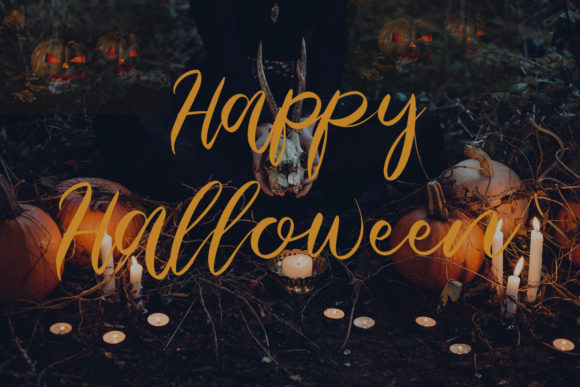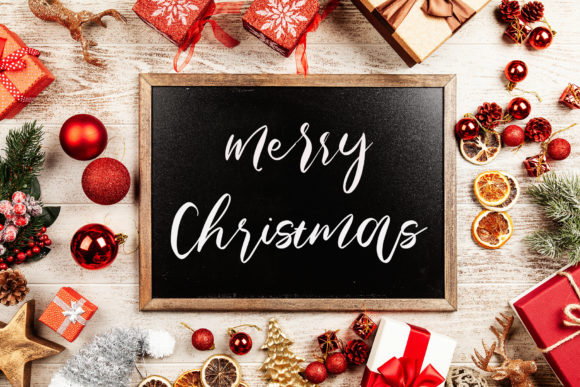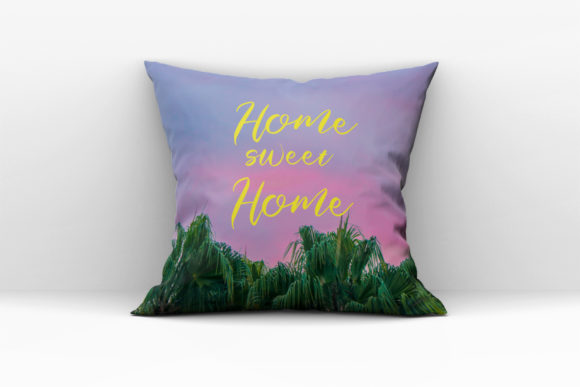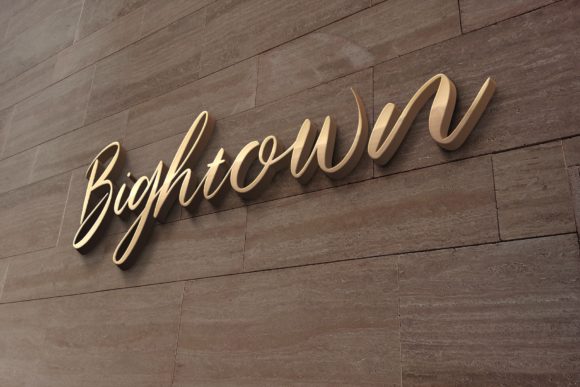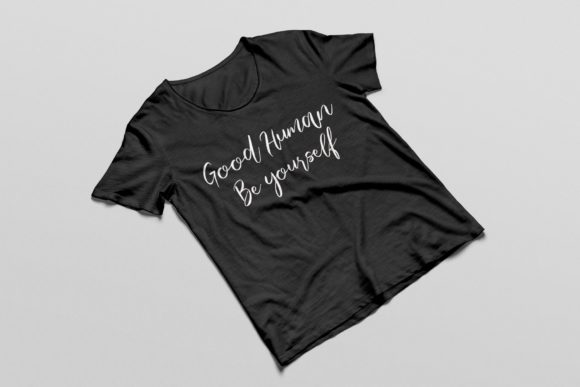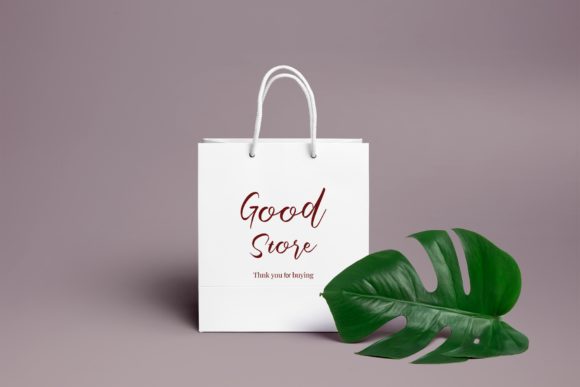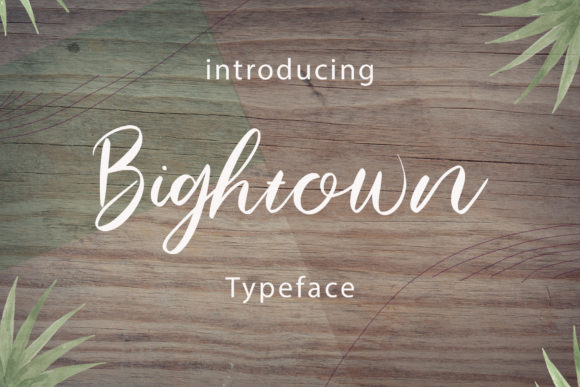
The Bightown Font: A Creative Powerhouse
I’ll never forget the moment I stumbled upon the Bightown font. I was working on a project for a client who wanted a unique, handwritten look that would make their brand stand out. I had spent hours scouring the internet for the perfect font, but nothing seemed quite right. That was until I discovered Bightown. With its incredibly unique handwritten style, I knew I had found the one. Masterfully designed to become a true favorite, this font has the potential to bring each of your creative ideas to the highest level!
So, what makes Bightown so special? Let’s dive into the good stuff and a few quirks I’ve noticed.
• ✨ Unique and creative handwritten style that’s sure to turn heads
• 💫 Extensive character set, including OpenType features and glyphs
• 🎨 Perfect for a wide range of creative projects, from branding to crafting
While Bightown is an amazing font, there are a few things to keep in mind:
• 🤔 Some users may find the font a bit too ornate for certain projects
• ⚠️ Limited availability of certain special characters
The Story Behind Bightown
While the true story behind Bightown may be unknown, it’s easy to imagine that it was created by a designer who wanted to craft a unique and creative font that would inspire others. Perhaps they drew inspiration from the beautiful handwriting of artists and craftspeople, or maybe they simply wanted to create something that would bring joy to those who used it.
Q: What makes Bightown so unique?
A: Bightown’s unique handwritten style and extensive character set make it stand out from other fonts.
Q: Is Bightown difficult to read?
A: No, Bightown is highly legible, even at smaller font sizes.